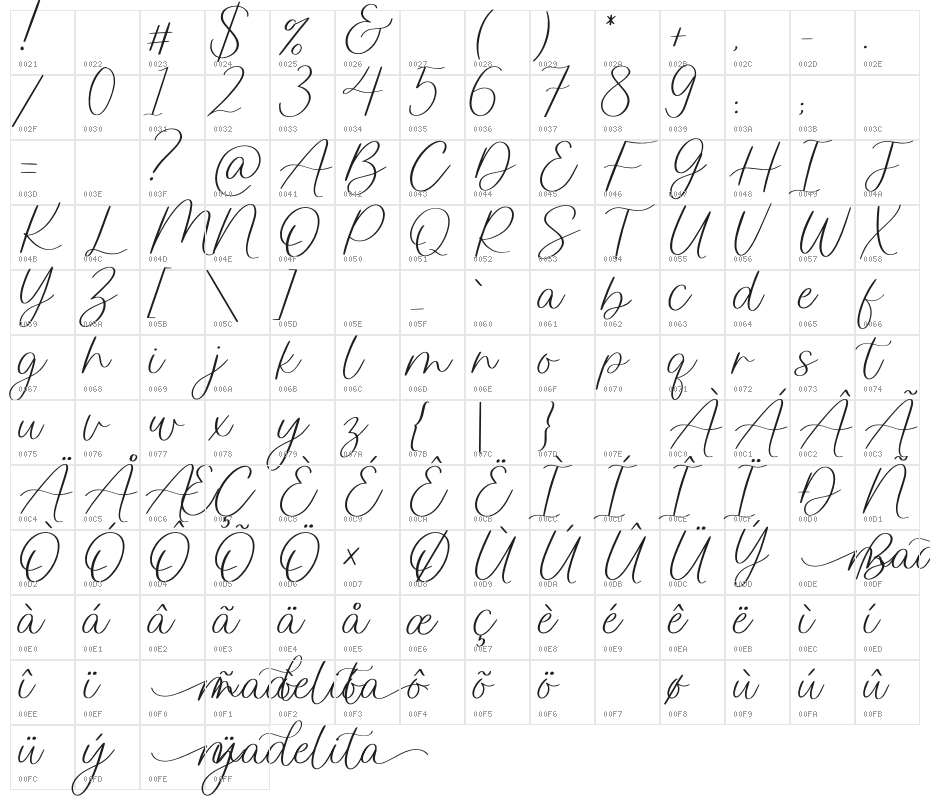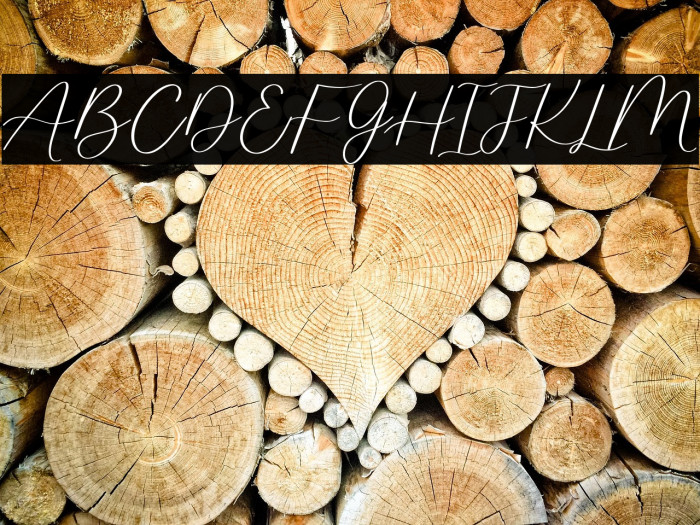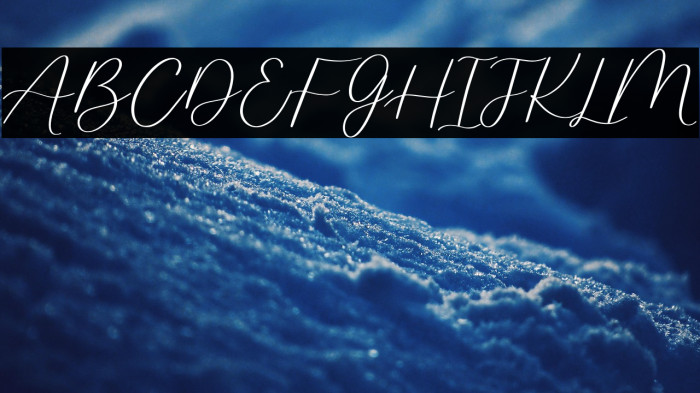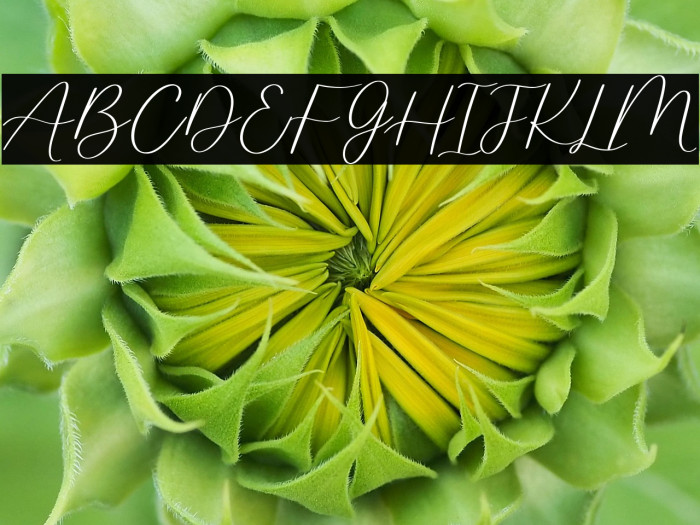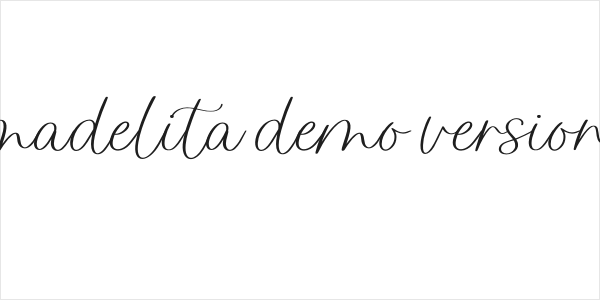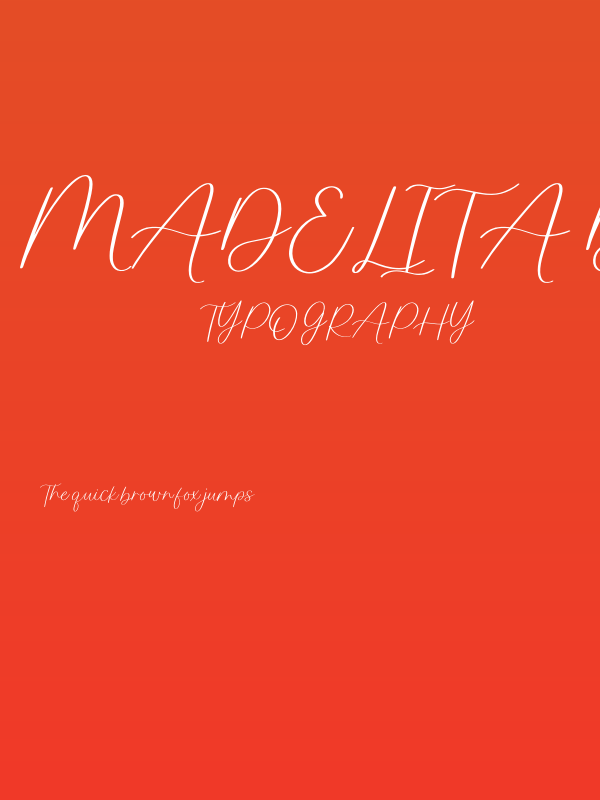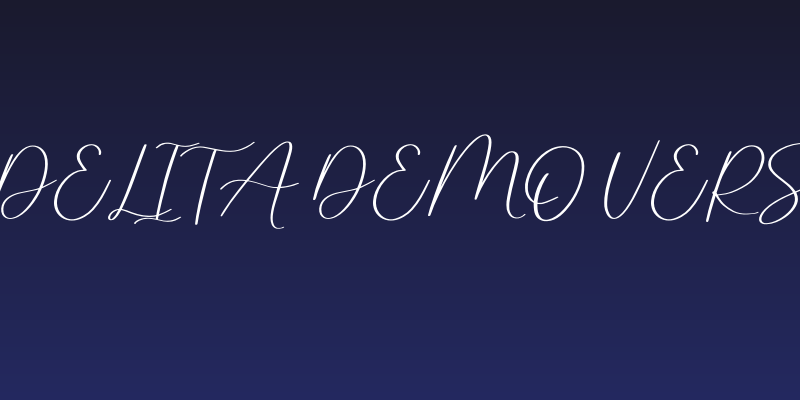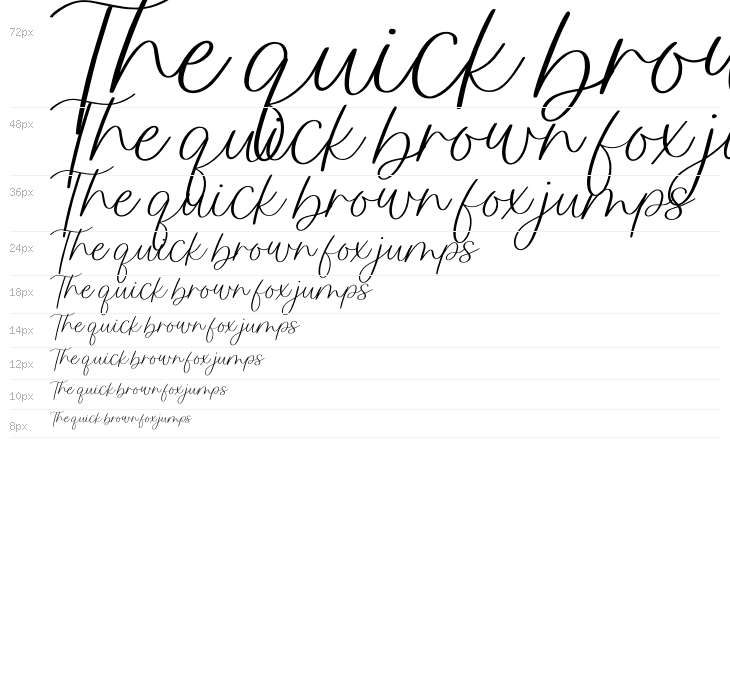
madelita demo version Font
madelita demo version Description
This elegant script font features a flowing, cursive style with smooth, continuous strokes that create a sense of fluidity and grace. The uppercase letters are tall and slender, with gentle curves and loops that add a touch of sophistication. The lowercase letters maintain a consistent flow, with delicate connections between each character, enhancing the overall harmony of the text. The numerals are designed with the same graceful curves, ensuring a cohesive look throughout. Special characters are thoughtfully integrated, maintaining the font's elegant aesthetic. This font exudes a modern yet timeless appeal, making it suitable for a variety of design projects.
| Overall Style | Elegant, Modern |
| Use Case | Logos, Invitations, Headlines |
| Proposed Projects | Ideal for wedding invitations, elegant branding, personal stationery, and upscale packaging. |